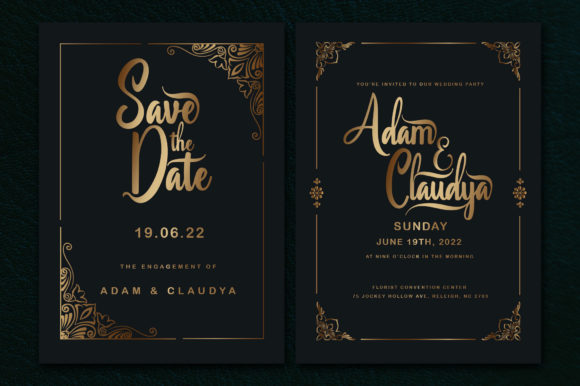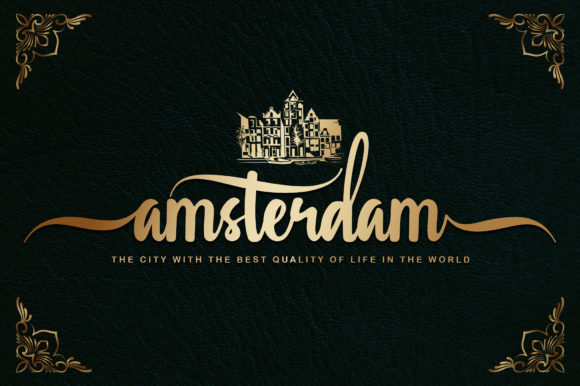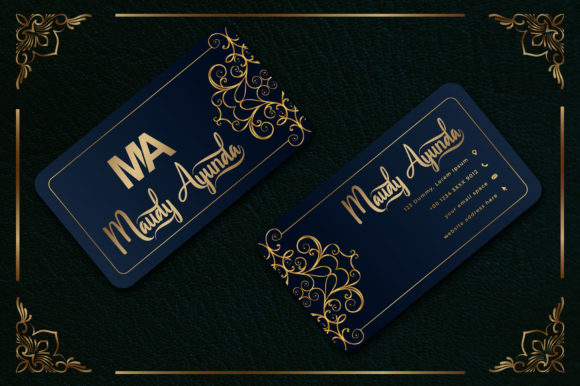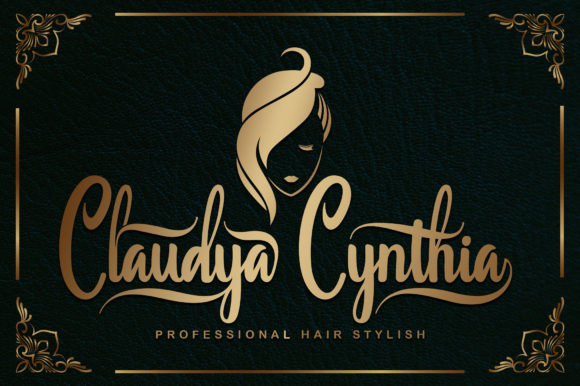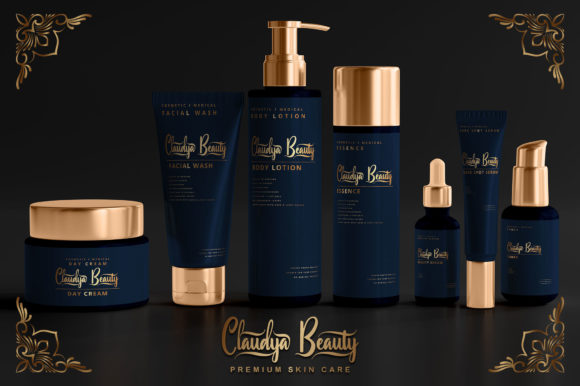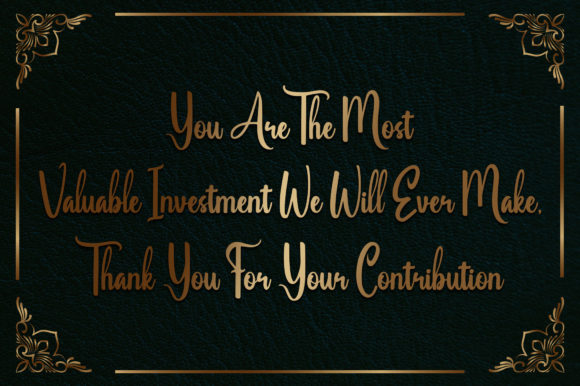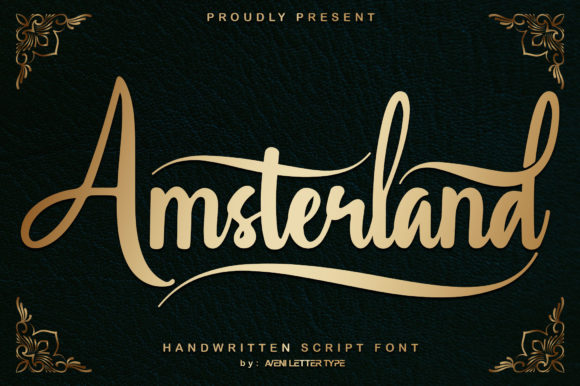
Introducing Amsterland Font: Elevate Your Designs with Elegance and Sophistication
In the world of typography, fonts play a crucial role in conveying the tone and personality of a design. For designers and crafters seeking a classy, elegant, and modern look, Amsterland Font is an excellent choice. This handwritten script font boasts exceptionally neat kerning, making it perfect for a wide range of applications, from logos and branding to social media posts and wedding designs.
What Makes Amsterland Font Stand Out?
Amsterland Font’s unique charm lies in its perfect blend of elegance and modernity. Its handwritten script style gives designs a personal touch, while its neat kerning ensures that the text remains clear and readable. This font is meticulously crafted to provide a sophisticated look that can elevate any design project.
Versatile Applications of Amsterland Font
One of the significant advantages of Amsterland Font is its versatility. It can be used across various mediums and projects, including:
- Logos and Branding: Create a lasting impression with a logo that exudes elegance and sophistication.
- Cosmetic Tube Design: Add a touch of luxury to your product packaging with Amsterland Font.
- Design Flyers: Stand out from the crowd with eye-catching flyers that showcase your brand’s personality.
- Business Cards: Make a statement with business cards that reflect your professionalism and style.
- Invitations: Set the tone for special occasions with elegant and inviting designs.
- Stationery: Elevate your brand’s correspondence with stylish and sophisticated stationery.
- Wedding Designs: Make your wedding stationery and decor truly unforgettable with Amsterland Font.
- Social Media Posts: Enhance your online presence with visually appealing social media posts that capture your audience’s attention.
Why Choose Amsterland Font?
With so many fonts available, why should you choose Amsterland Font for your design projects? Here are a few compelling reasons:
- Unique Style: Amsterland Font offers a distinctive style that can help your designs stand out.
- Ease of Use: Its neat kerning and clear readability make it easy to use across various design projects.
- High Versatility: Whether you’re working on a logo, social media post, or wedding invitation, Amsterland Font can adapt to any design need.
- Elegance and Sophistication: It brings a level of elegance and sophistication that can elevate the overall look of your designs.
Tips for Using Amsterland Font Effectively
To get the most out of Amsterland Font, consider the following tips:
- Pair with Complementary Fonts: Combine Amsterland Font with sans-serif fonts for a balanced and harmonious look.
- Adjust Size and Color: Experiment with different sizes and colors to create visual hierarchy and emphasis.
- Use for Headings and Titles: Amsterland Font shines in headings and titles, but feel free to use it for body text for a unique look.
Amsterland Font is a powerful tool for designers and crafters looking to add a touch of elegance and sophistication to their projects. Its unique style, versatility, and ease of use make it an excellent choice for a wide range of design applications. By incorporating Amsterland Font into your design toolkit, you can create stunning and memorable designs that leave a lasting impression.